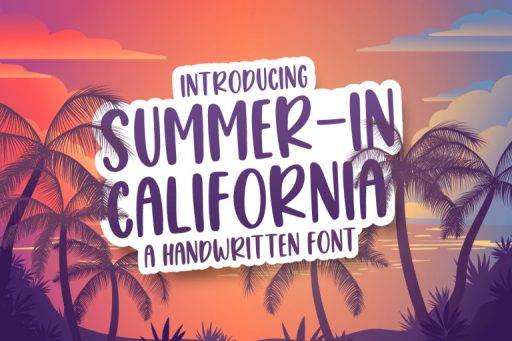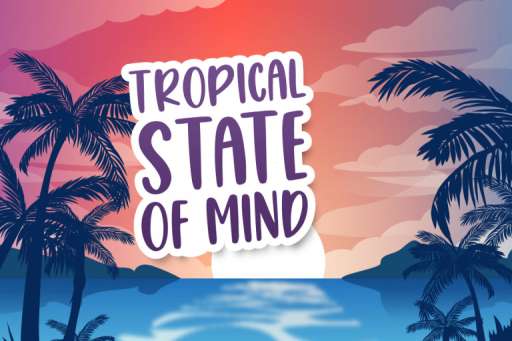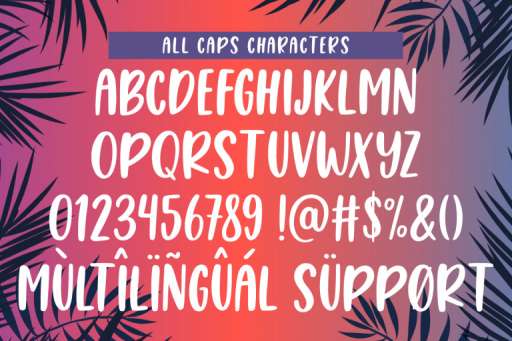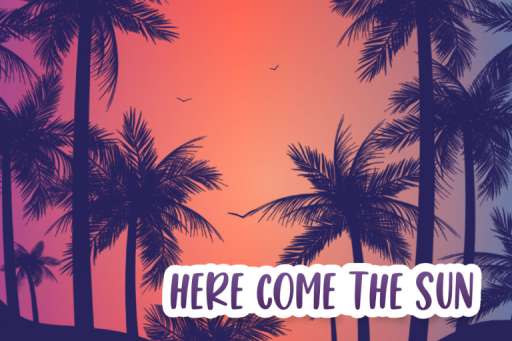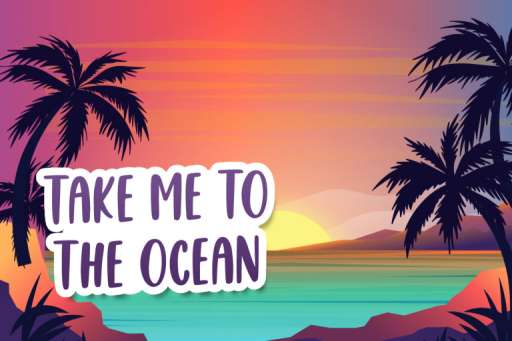
Summer in California – Handlettering Script
Summer in California is a handwritten bold and tall font with all caps characters. Very suitable for web, logos, branding, T-Shirt, kids design, craft design, quotes, stationery, quotes, and much more!
Summer in California Features :
- Basic Latin A-Z and a-z
- Numbers and punctuation
- Multilingual